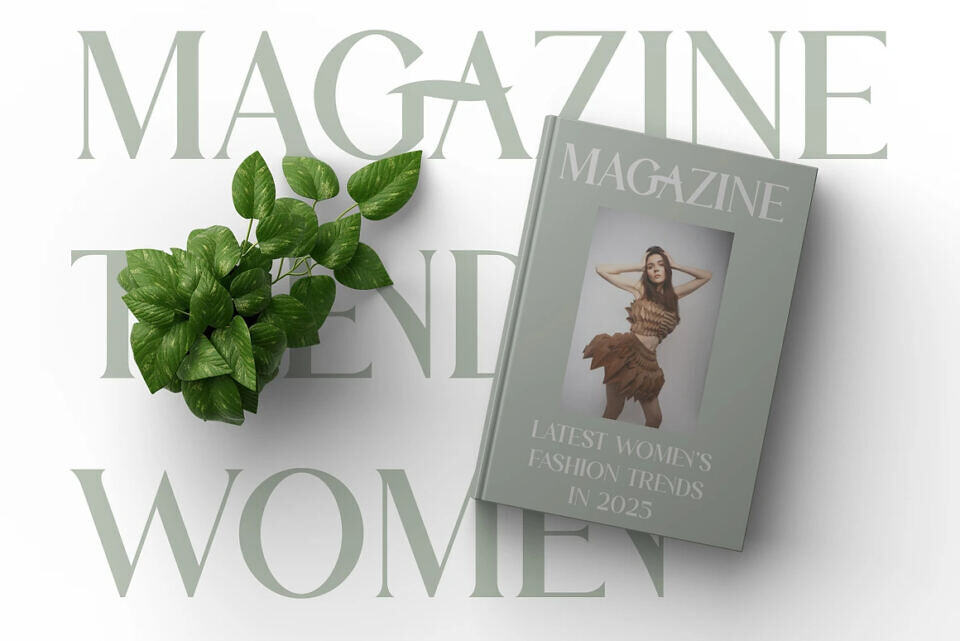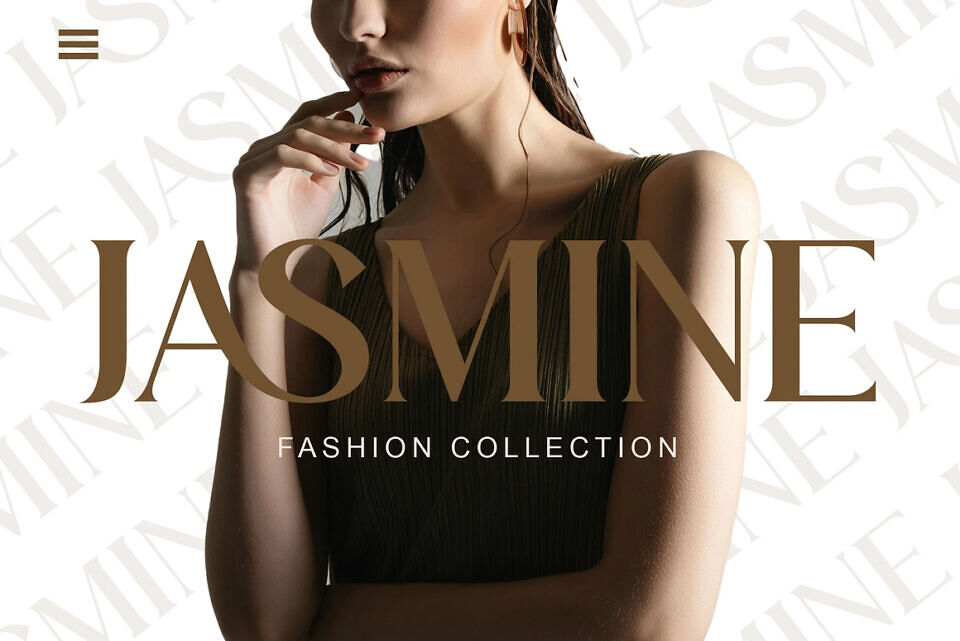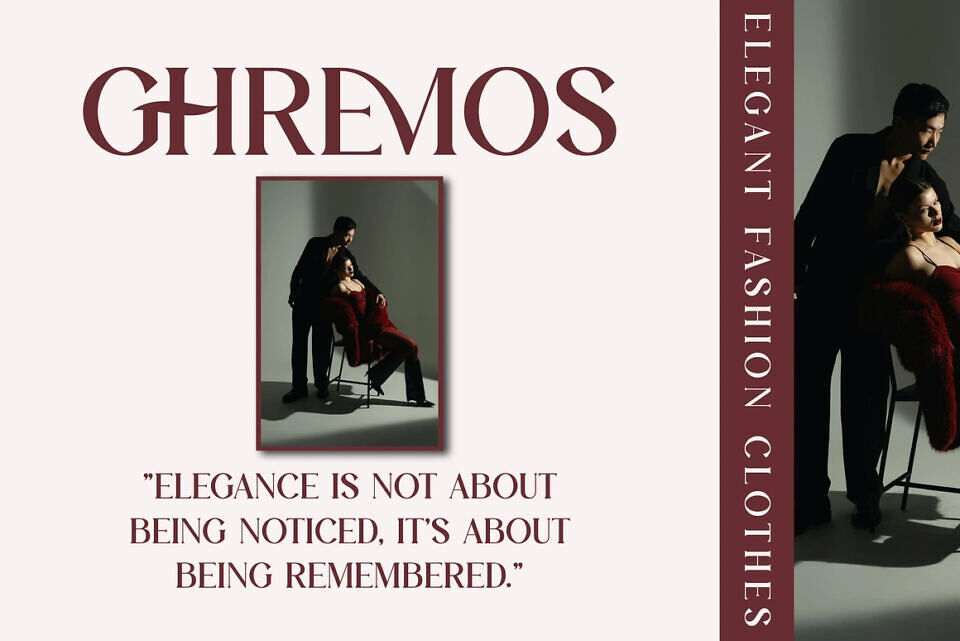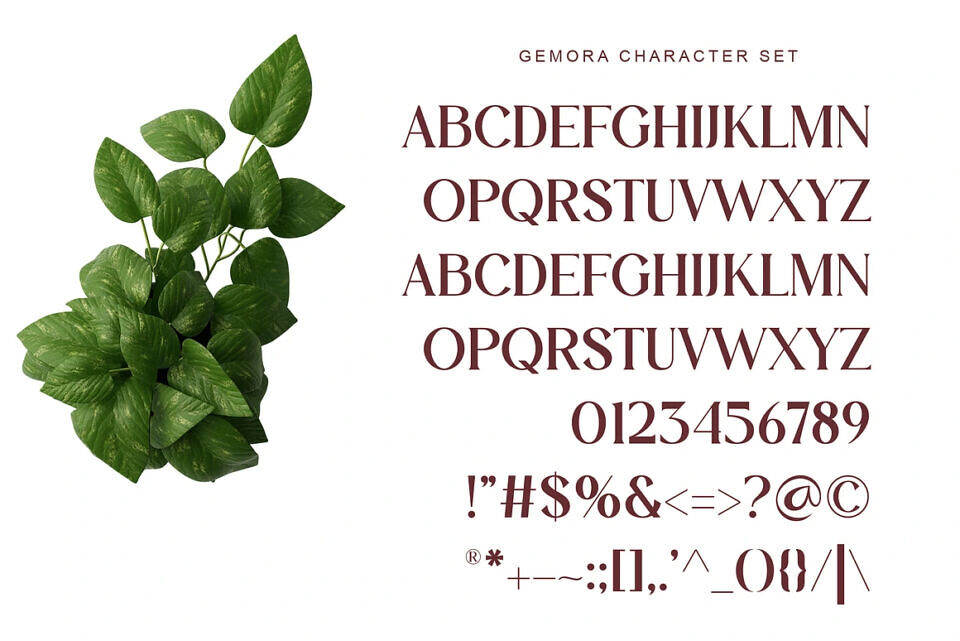
Gemora Font
Introducing Gemora A minimal, beautiful and modern serif typeface. With its modern and minimalist appearance, Gemora brings a luxurious, classy and clean impression to your projects such as websites, modern logos, branding identities, social media quotes, wedding stationery, magazines and various other needs!
Gemora features unique and classy capital letters A to Z so that The True Collage is a beautiful font that can be adapted to various projects and jobs that you want.